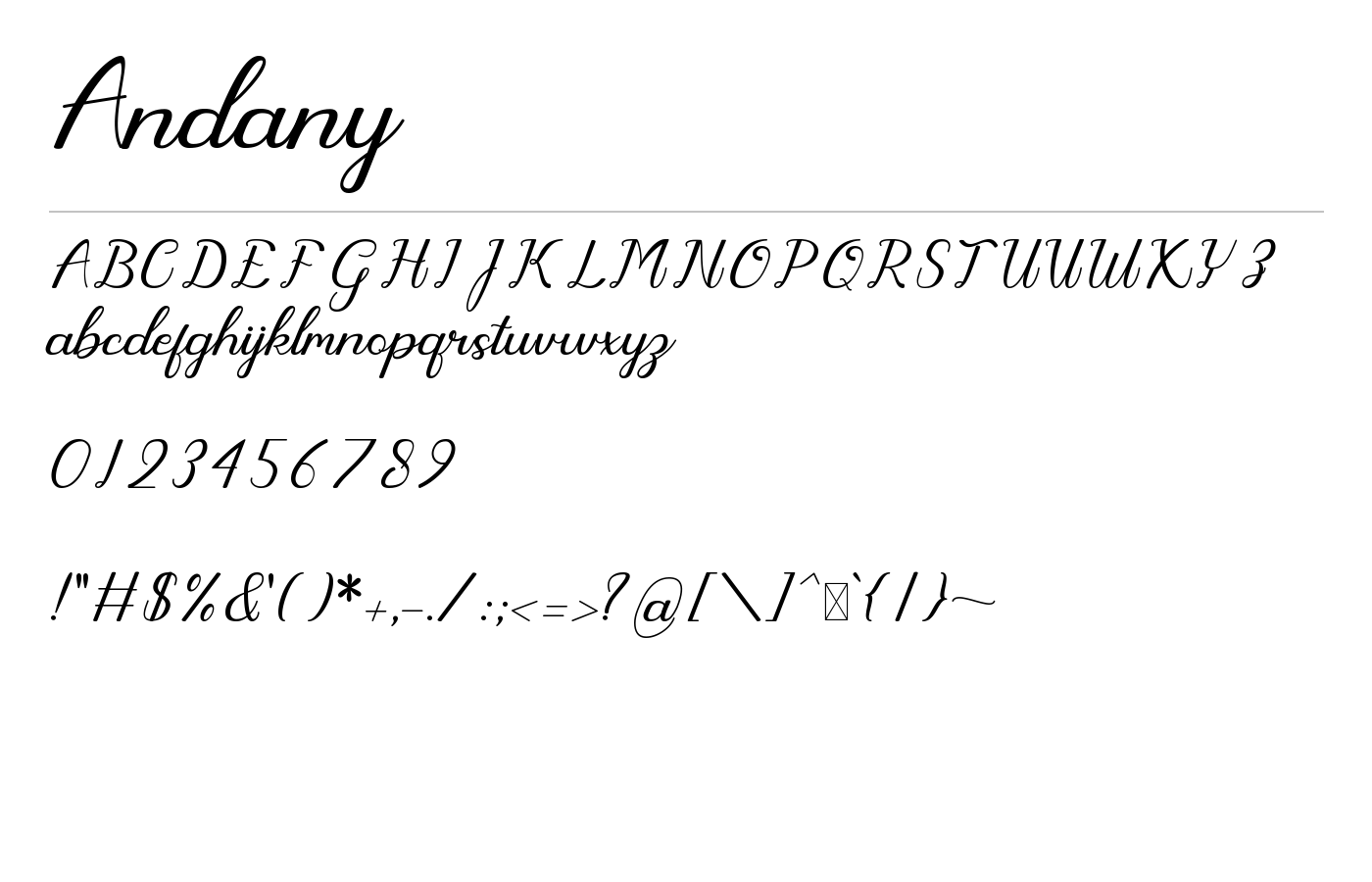
Andany is an elegant, script-style font characterized by its graceful, flowing strokes and light weight, giving it a refined and delicate appearance. Its slender letterforms and subtle italic slant convey a sense of sophistication and charm, making it ideal for invitations, branding, and editorial uses where a personal, classy touch is desired. This font works beautifully in headlines and logos that seek to express elegance and an artistic, handwritten feel.
Andany Font
About Andany Font